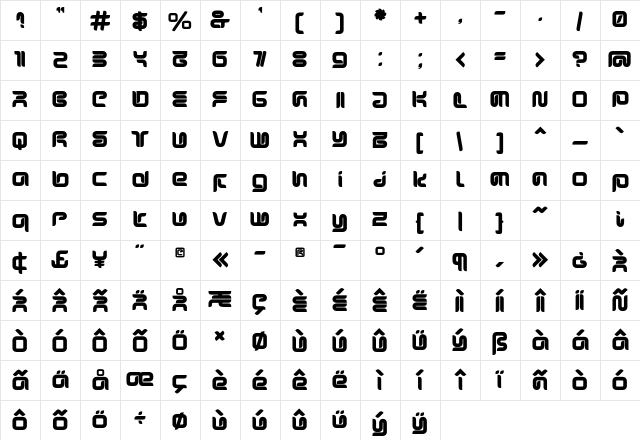
Sharp Ultra Regular Free Font
Sharp Ultra Regular
Sharp Ultra Family
Design Context for Sharp Ultra
Sharp Ultra is a composed and adaptable typeface that performs quietly and consistently across a wide range of design contexts.